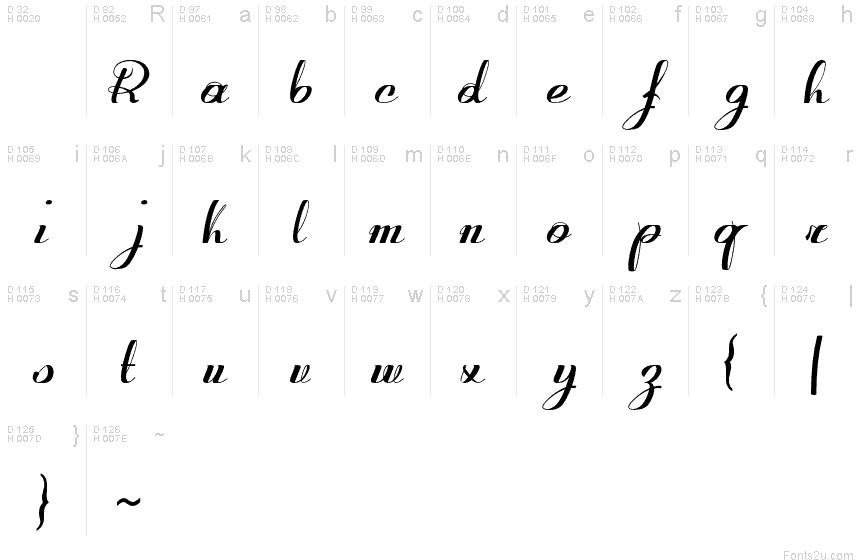
Retroactive by Fontscafe is a free calligraphic script with a dramatic, fashion-minded sweep. Its letters move between hairline curves and broad black strokes, with generous loops extending well beyond the main forms. Tall flourishes give the writing an unmistakably formal silhouette.
It can turn a fashion label into a sweeping signature, and the same theatrical role suits beauty packaging. It gives invitations a distinctly ceremonial note. For magazine mastheads and music posters, the oversized loops can become part of the surrounding ornament.
Retroactive by Fonts Cafe is a free calligraphic script.